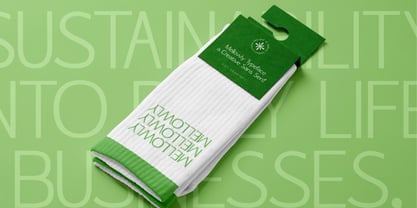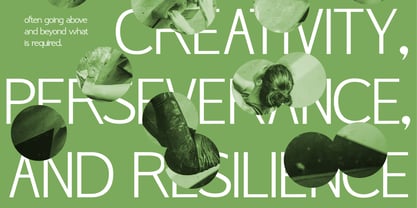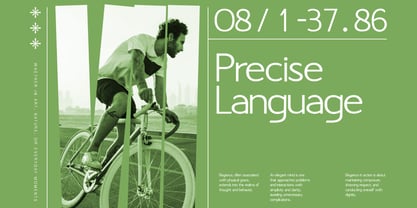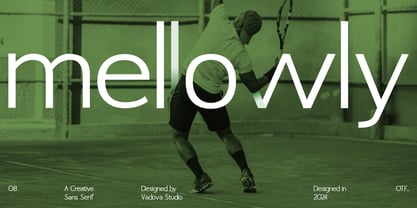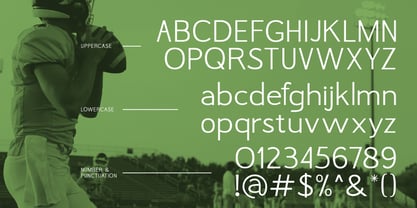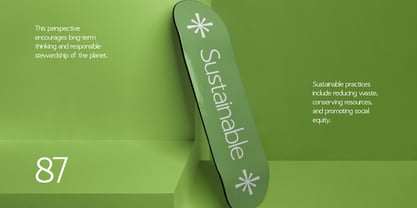
Mellowly
by Vadova Std
The Mellowly Font Family was designed by and published by Vadova Std. Mellowly contains 1 styles.
Elevate your designs with Mellowly, a modern font perfect for adding elegance and style to your projects. Whether it’s for quotes, logotypes, magazine headers, or more, this versatile typeface ensures your text stands out beautifully.
Uppercase & Lowercase characters
Numeral & Punctuations
Versatile and creative sans serif typeface